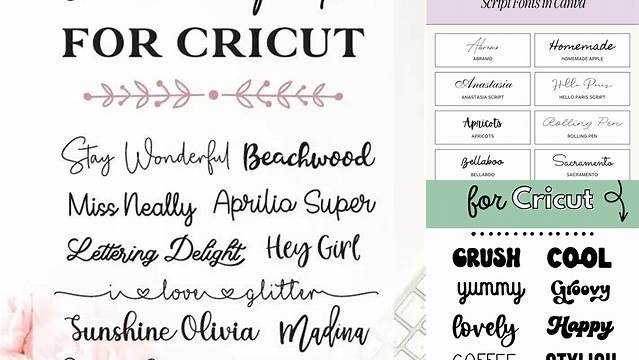
Best Cursive Fonts For Cricut Pen: Elegant Choices
Are you looking to add a touch of elegance and personalization to your Cricut projects? Look no further than cursive fonts! These beautiful, flowing scripts can transform your crafts from simple to stunning, especially when using Cricut pens. But with so many options available, choosing the best cursive fonts for your Cricut pen projects can feel overwhelming. That's why we've put together this comprehensive guide to help you navigate the world of cursive fonts and find the perfect match for your creative vision. Guys, get ready to dive into the world of elegant lettering and unleash your inner artist!
Why Choose Cursive Fonts for Cricut Pen Projects?
Let's talk about why cursive fonts are such a fantastic choice for Cricut pen projects. First and foremost, they add a touch of sophistication and personality that block fonts simply can't match. Imagine using a delicate, flowing script for wedding invitations, personalized cards, or even home décor items. The result is a handcrafted feel that elevates your projects to the next level. Beyond aesthetics, cursive fonts offer versatility. They can be used for a wide range of projects, from intricate monograms to heartfelt quotes. The smooth lines and connecting strokes of cursive fonts are particularly well-suited for pen plotting, creating a beautiful, hand-lettered effect without the need for actual handwriting. This is a game-changer for anyone who wants to add a personal touch but may not have the steadiest hand. Cursive fonts bring a unique charm and character to any project. Whether you're crafting personalized gifts, creating signage, or adding embellishments to scrapbook pages, the right cursive font can make all the difference. It's about creating something that feels special, something that tells a story. The elegance of cursive adds a timeless quality, making your projects feel both classic and contemporary. Ultimately, choosing cursive fonts for your Cricut pen projects is about adding a layer of artistry and refinement. It's about transforming the ordinary into the extraordinary, and making your creations truly stand out.
Factors to Consider When Choosing Cursive Fonts
Before we dive into specific font recommendations, let's discuss the key factors you should consider when selecting cursive fonts for your Cricut pen. Not all cursive fonts are created equal, and some will work better than others for pen plotting. Legibility is paramount. A beautiful font is useless if it's difficult to read, especially at smaller sizes. Look for fonts with clear, distinct letterforms and avoid overly ornate or intricate designs. Think about the spacing between letters and words, ensuring there's enough white space for readability. Another crucial factor is font weight. Thin, delicate fonts can look stunning but may be challenging for your Cricut pen to draw, particularly on textured or uneven surfaces. A medium-weight cursive font is generally a safer bet, providing enough ink coverage without being too heavy or bold. Consider the connecting strokes of the font. Smooth, flowing connections are essential for a seamless pen-plotting experience. Fonts with abrupt or jagged connections can result in uneven lines and a less polished final product. Test the font on a small scale before committing to a large project to ensure the connections are clean and consistent. Think about the overall style of the font and whether it aligns with your project's aesthetic. Are you going for a formal and elegant look, or something more casual and playful? The font should complement the overall design and message of your project. Remember, the right font can enhance your creation, while the wrong font can detract from it. By carefully considering these factors, you'll be well-equipped to choose cursive fonts that not only look beautiful but also perform flawlessly with your Cricut pen.
Top Cursive Font Recommendations for Cricut Pen
Alright, guys, let's get to the good stuff! Here are some of our top cursive font recommendations for Cricut pen projects, categorized by style to help you find the perfect match for your needs. First up, we have the Elegant & Formal Fonts. These fonts are perfect for wedding invitations, formal announcements, and upscale branding. Aphrodite Pro is a classic choice with its graceful curves and elegant flourishes. It's a versatile font that works well for both headlines and body text. Adelia Script is another stunning option, offering a more modern take on traditional calligraphy. Its clean lines and sophisticated aesthetic make it ideal for a wide range of projects. For a touch of vintage charm, consider Bickham Script Pro. This font exudes timeless elegance and is perfect for adding a touch of old-world glamour to your creations. Next, we move onto the Casual & Playful Fonts. These fonts are perfect for adding a touch of whimsy and personality to your projects. Hello Honey is a fun and friendly script with a bouncy baseline and playful letterforms. It's a great choice for kids' crafts, party decorations, and anything that needs a touch of lightheartedness. Lemon Jelly is another delightful option, featuring a sweet and charming aesthetic. Its rounded letterforms and playful swashes make it perfect for adding a touch of sweetness to your designs. If you're looking for something with a bit more personality, Better Together is an excellent choice. This handwritten-style script has a natural and organic feel, making it perfect for adding a personal touch to your projects. Lastly, let's explore the Modern & Chic Fonts. These fonts offer a contemporary twist on traditional cursive, perfect for adding a touch of sophistication to your designs. Sophia Ronald is a stylish and elegant script with a clean and modern aesthetic. It's a versatile font that works well for a wide range of projects, from branding to social media graphics. Milkshake is another popular choice, featuring a bold and confident design. Its thick strokes and modern letterforms make it perfect for making a statement. For a minimalist and chic look, consider Selima. This delicate script has a refined and sophisticated feel, making it ideal for adding a touch of understated elegance to your designs. Remember to experiment with different fonts and find the ones that best suit your personal style and project needs. The possibilities are endless!
Tips for Using Cursive Fonts with Cricut Pen
Now that you've chosen your perfect cursive font, let's talk about some tips for using it effectively with your Cricut pen. First and foremost, always weld your cursive fonts before cutting or drawing. Welding combines the individual letters into a single, continuous shape, ensuring that the pen draws the font smoothly and without any gaps or overlaps. This is especially crucial for cursive fonts, where the letters are designed to connect seamlessly. To weld your font in Cricut Design Space, simply select the text, go to the “Combine” menu in the bottom right corner, and choose “Weld.” It's a simple step that makes a huge difference in the final result. Next, consider the pen type and size you're using. Fine-point pens are generally recommended for cursive fonts, as they create delicate lines and maintain the integrity of the font's design. However, depending on the font weight and the size of your project, you may also experiment with medium-point or even bold pens. Be sure to test different pen types to see which one works best for your chosen font and material. Another important tip is to adjust the line spacing and letter spacing as needed. Sometimes, the default spacing may not be ideal for cursive fonts, especially when used at different sizes. Use the letter spacing and line spacing tools in Cricut Design Space to fine-tune the appearance of your text and ensure optimal readability. Don't be afraid to play around with these settings until you achieve the desired look. Experiment with different materials to see how your chosen cursive font performs. Smooth cardstock is generally a good choice for pen plotting, but you can also try other materials like vellum, sticker paper, or even fabric. Keep in mind that some materials may require different pen settings or blade settings to achieve the best results. Finally, practice makes perfect. Don't be discouraged if your first attempt isn't flawless. Experiment with different fonts, pen types, and materials, and you'll soon master the art of using cursive fonts with your Cricut pen. With a little patience and practice, you can create stunning projects that showcase the beauty and elegance of cursive lettering.
Common Mistakes to Avoid When Using Cursive Fonts
Even with the best intentions, there are some common mistakes that crafters often make when using cursive fonts with their Cricut pens. Being aware of these pitfalls can help you avoid frustration and achieve professional-looking results. One of the most frequent errors is forgetting to weld the font. As we discussed earlier, welding is essential for creating a smooth and continuous line when drawing cursive fonts. Without welding, the pen will draw each letter individually, resulting in unsightly gaps and overlaps. Always double-check that your font is welded before sending it to your Cricut machine. Another common mistake is choosing a font that is too thin or intricate for pen plotting. Delicate, hairline fonts can be challenging for the Cricut pen to draw, especially on textured or uneven surfaces. The pen may skip or create broken lines, resulting in a less-than-perfect outcome. Opt for medium-weight cursive fonts with clear, distinct letterforms for the best results. Ignoring letter and line spacing can also lead to readability issues. Cursive fonts often require adjustments to the default spacing to ensure that the letters flow smoothly and are easy to read. Overly tight spacing can make the letters look cramped and cluttered, while excessive spacing can make the words appear disjointed. Take the time to fine-tune the spacing until you achieve a balanced and harmonious look. Using the wrong pen type or size can also impact the final result. A pen that is too thick can make the font look heavy and clunky, while a pen that is too fine may not provide enough ink coverage. Experiment with different pen types and sizes to find the perfect match for your chosen font and material. Finally, rushing the process is a surefire way to make mistakes. Pen plotting requires patience and attention to detail. Don't try to cut corners or rush through the project. Take your time to prepare your materials, adjust your settings, and monitor the machine's progress. By avoiding these common mistakes, you'll be well on your way to creating stunning Cricut pen projects with cursive fonts.
Unleash Your Creativity with Cursive Fonts and Cricut Pen
So there you have it, guys! A comprehensive guide to the best cursive fonts for Cricut pen projects. We've explored why cursive fonts are such a fantastic choice, the key factors to consider when selecting a font, our top font recommendations, essential tips for using cursive fonts with your Cricut pen, and common mistakes to avoid. Now it's time to unleash your creativity and start crafting! Remember, cursive fonts add a touch of elegance, personality, and sophistication to your projects. Whether you're creating wedding invitations, personalized gifts, home décor items, or anything in between, the right cursive font can make all the difference. Don't be afraid to experiment with different fonts, pen types, and materials to discover your own unique style. Practice makes perfect, so don't get discouraged if your first attempt isn't flawless. With a little patience and creativity, you can create stunning projects that showcase the beauty and artistry of cursive lettering. So grab your Cricut machine, your favorite pens, and a gorgeous cursive font, and let your imagination soar. Happy crafting!